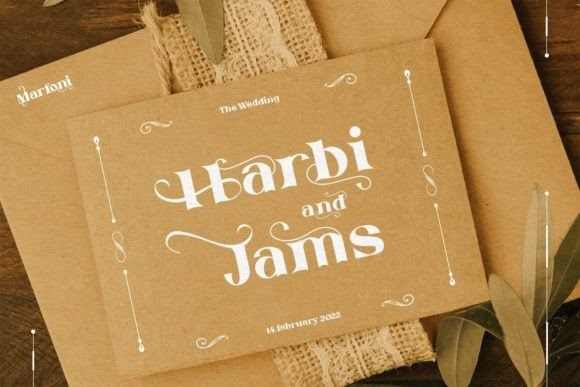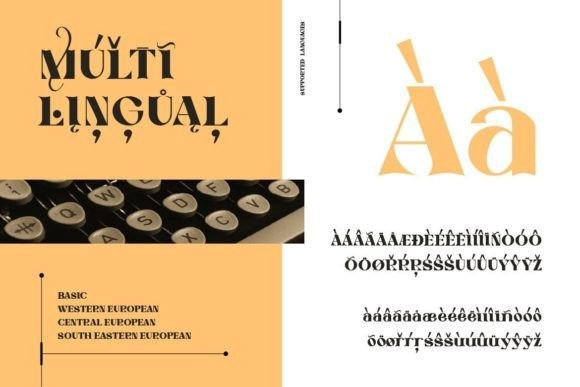
Marfoni Font
Introducing Marfoni is an Elegant stylish and playful modern serif Typeface. This font is good for logo design, Social media, Movie Titles, Books Titles, short text even long text letters, and good for your secondary text font with sans or serif.